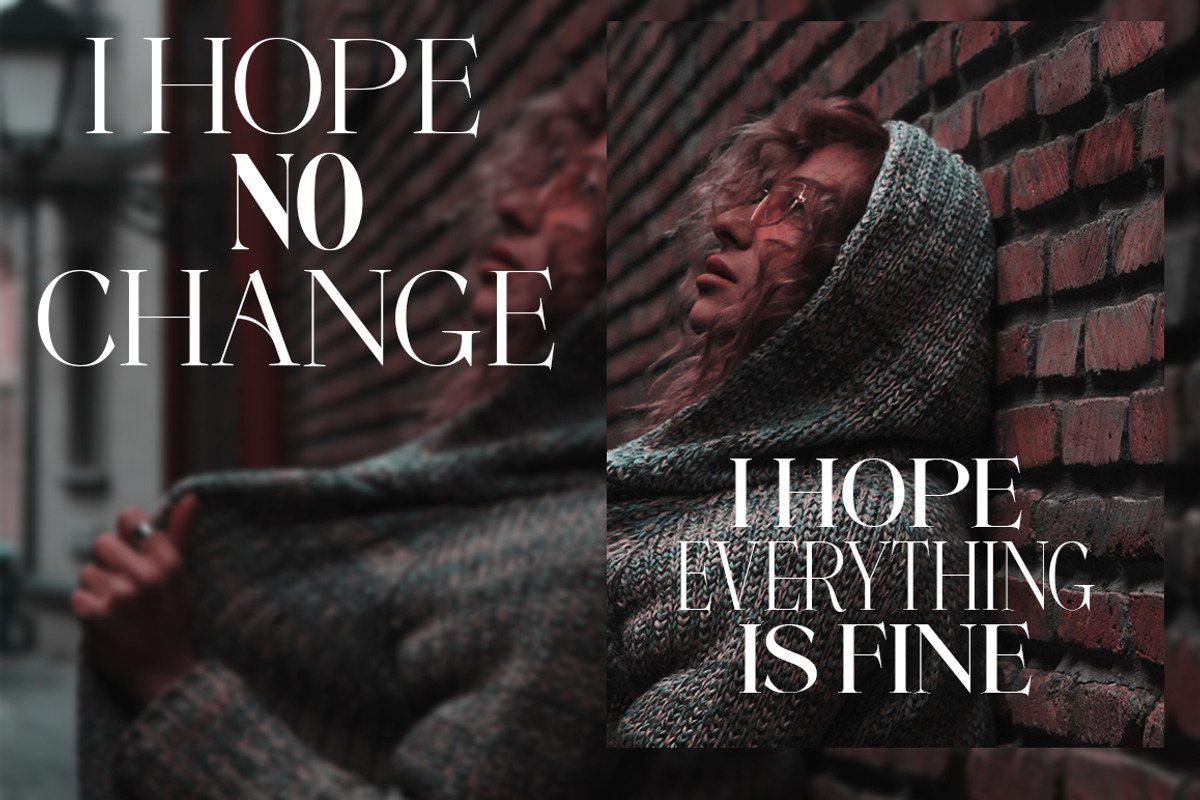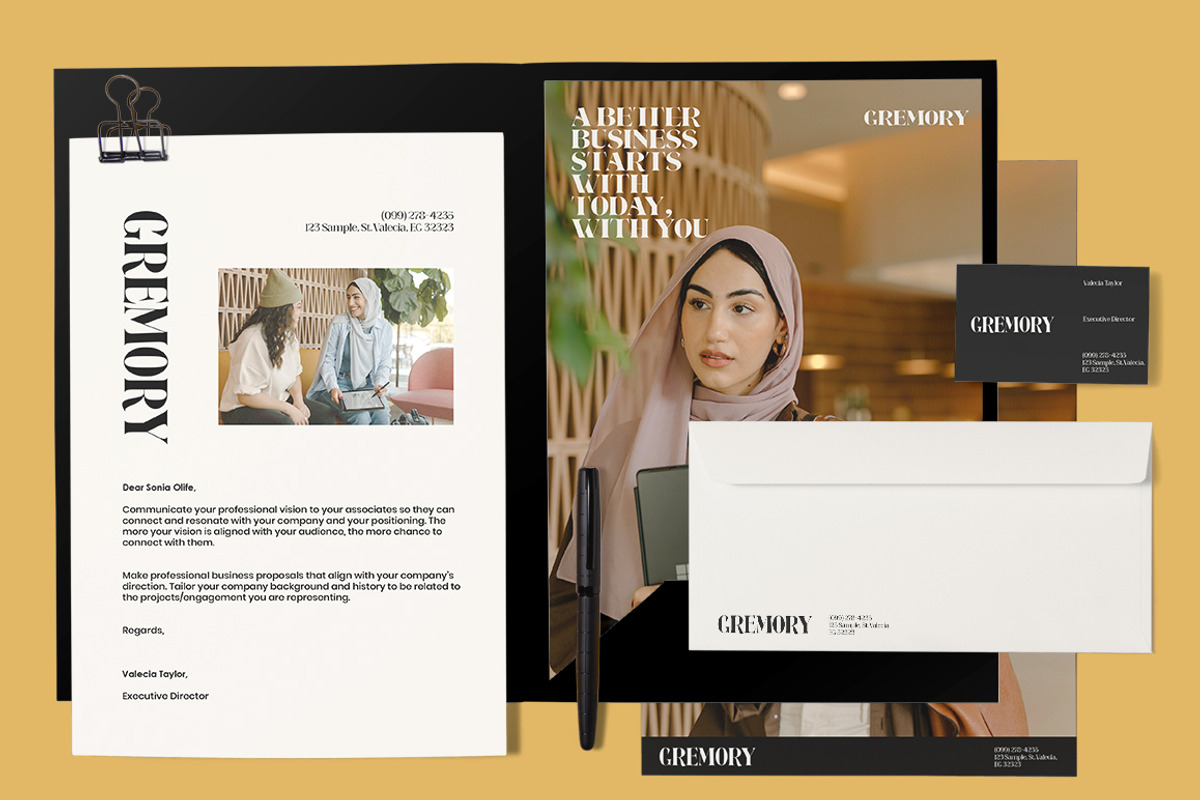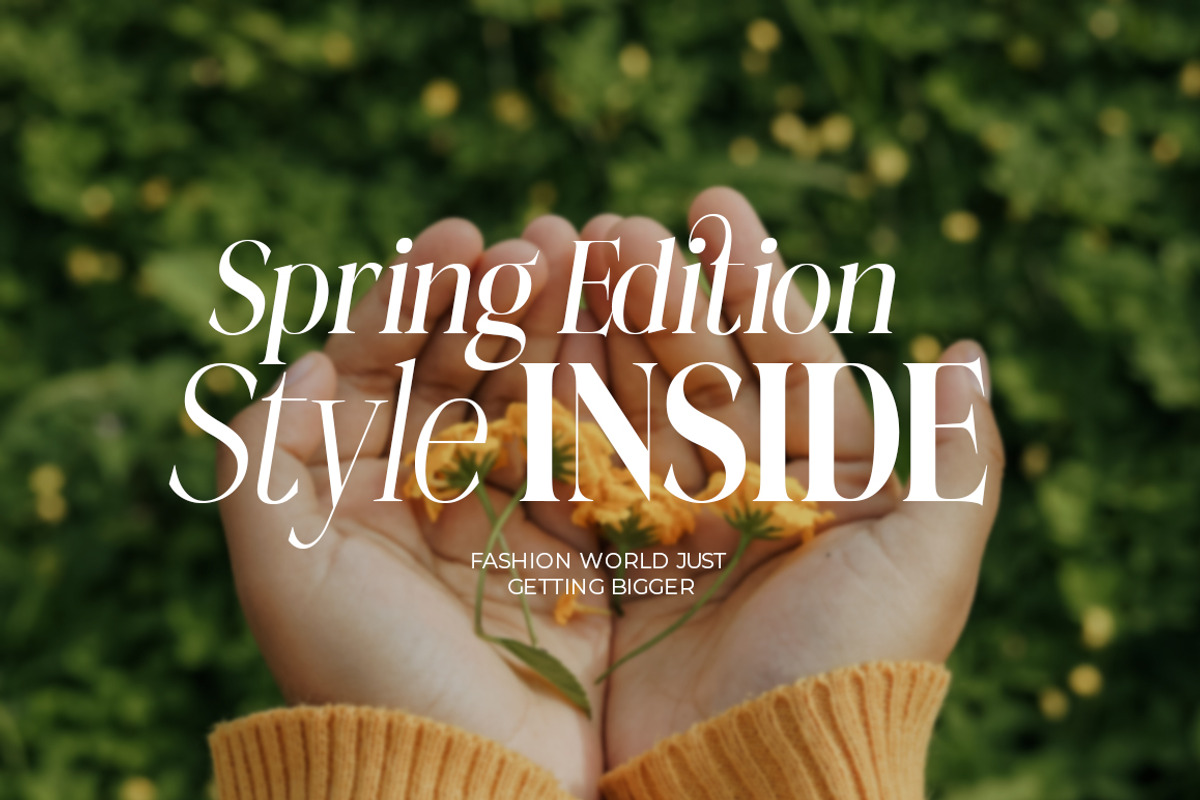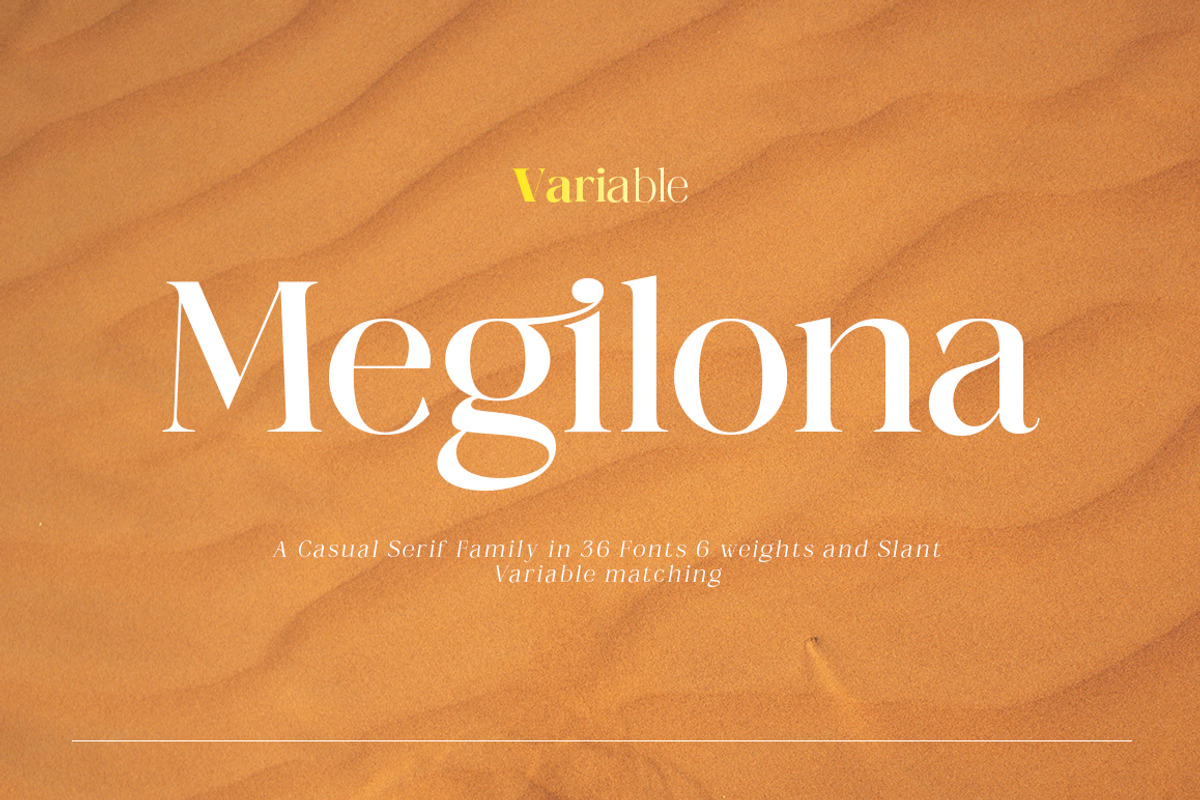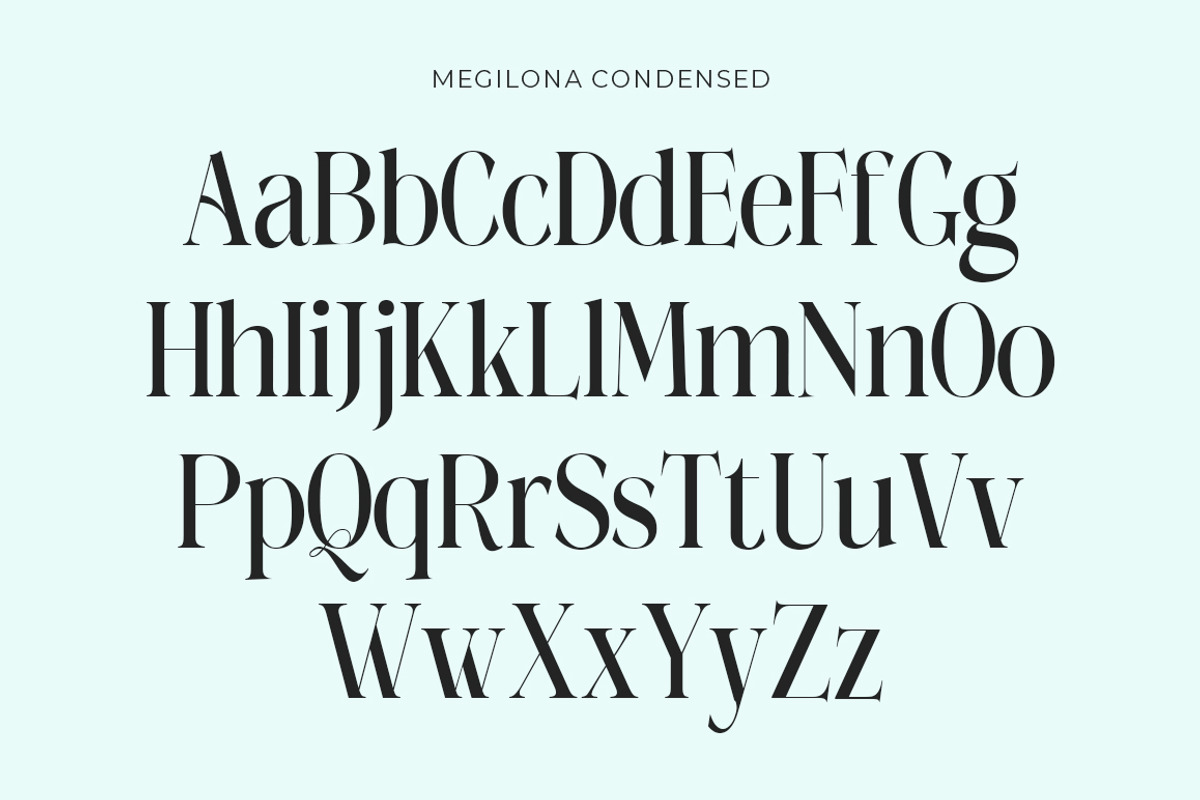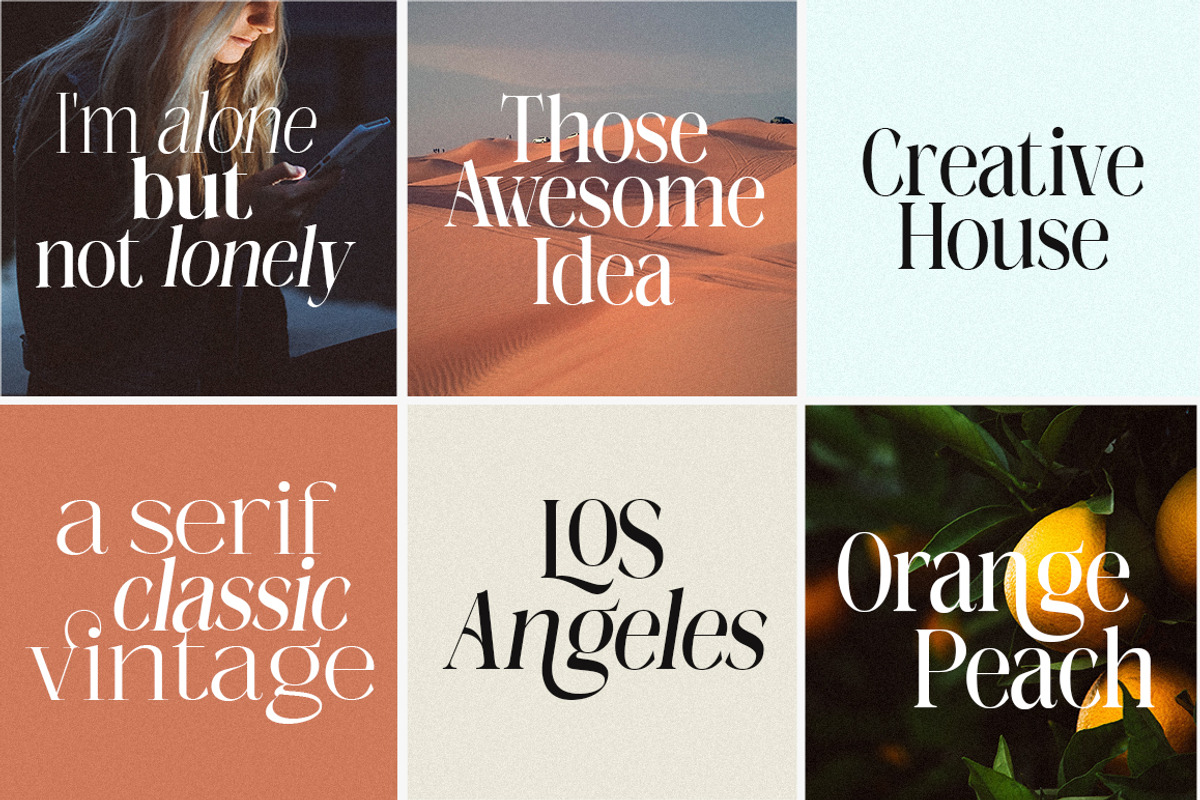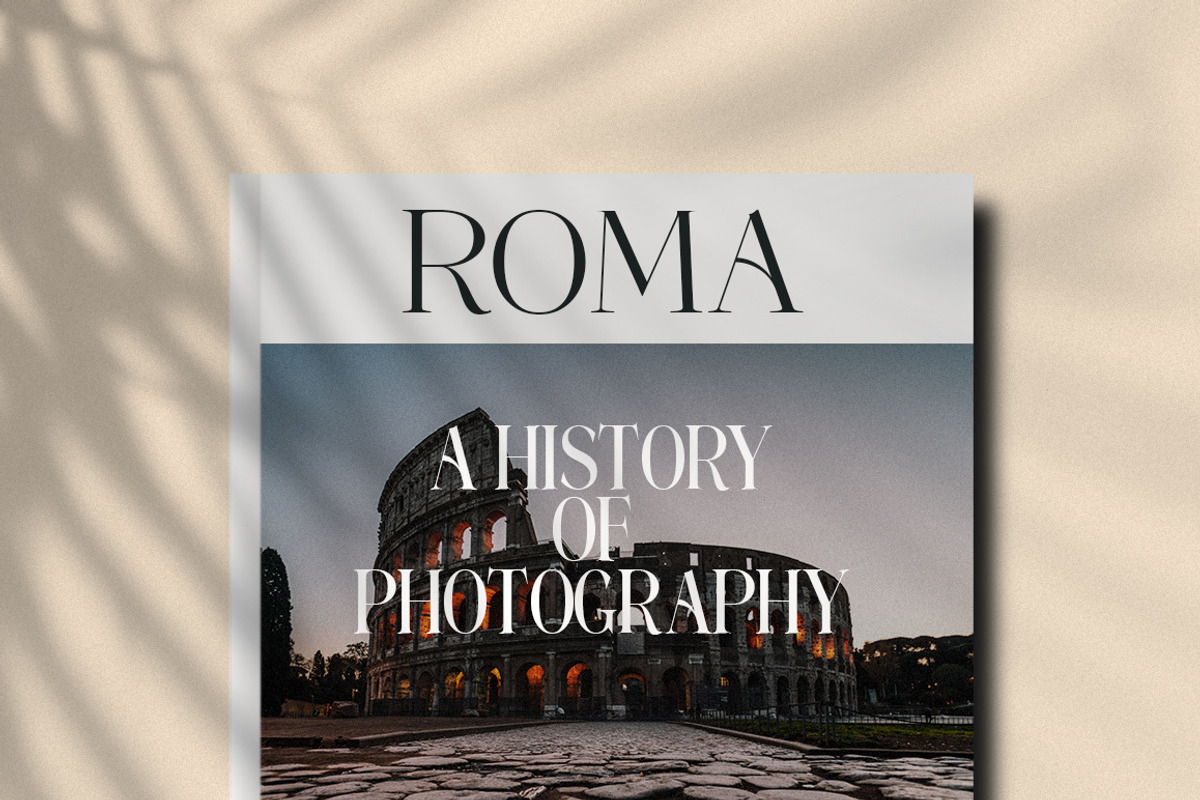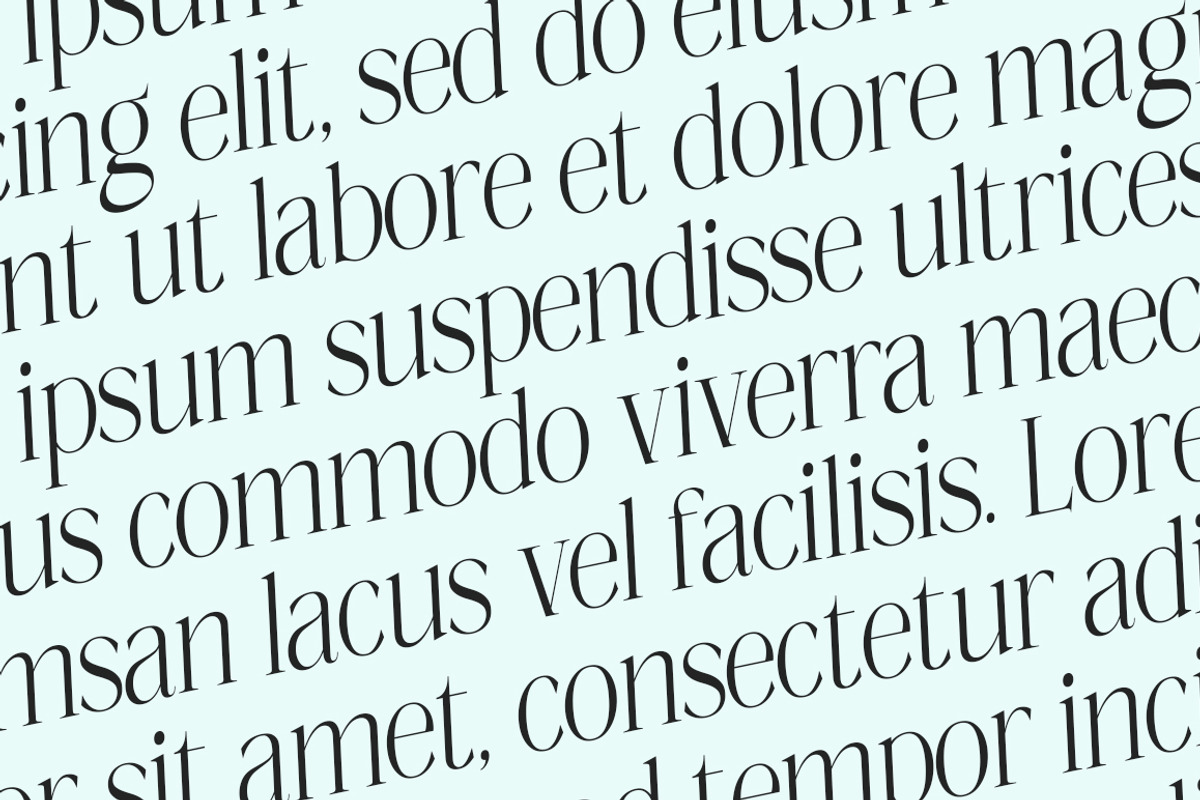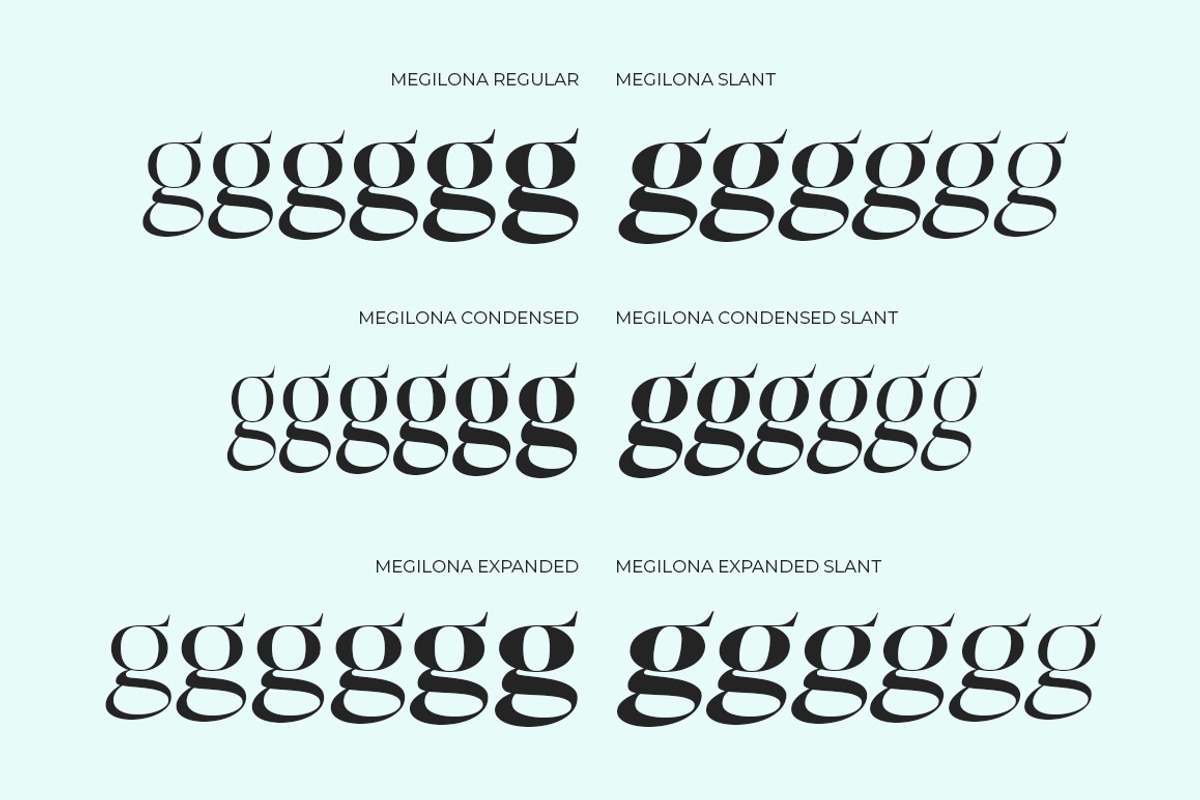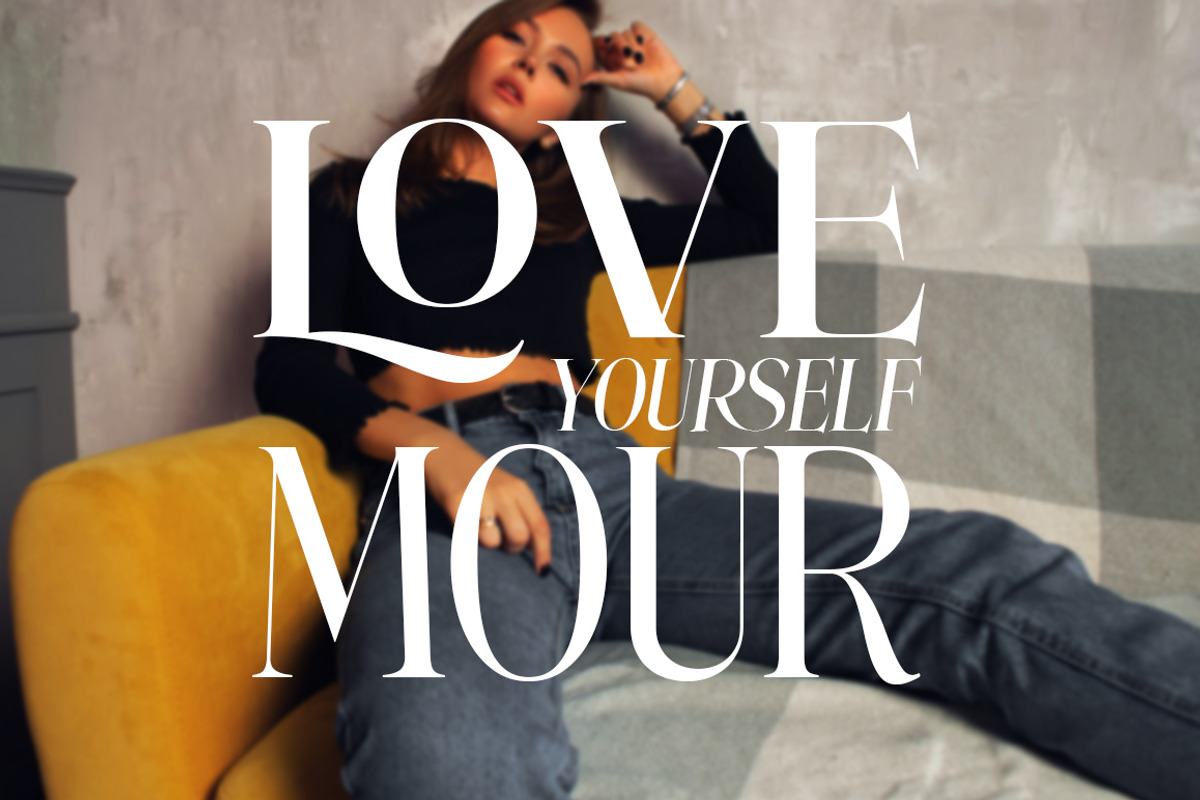
Megilona
As of my last update in January 2022, "Megilona" might be a newer or lesser-known font that hasn’t gained widespread recognition yet. I don't have specific details on its characteristics or style. However, within the "quiet" or "singlat" font categories, you can generally expect a sense of subtle elegance and sophistication. These fonts often feature clean, refined lines, gentle curves, and an understated yet graceful appearance. They tend to convey a feeling of tranquility and refined aesthetics, making them versatile for various design applications where a calm and polished look is desired, such as branding, editorial design, or elegant invitations. For a detailed description of Megilona's specific traits, I'd recommend checking font databases or the foundry's website for the most accurate information, as it might have been released or gained popularity after my last update.